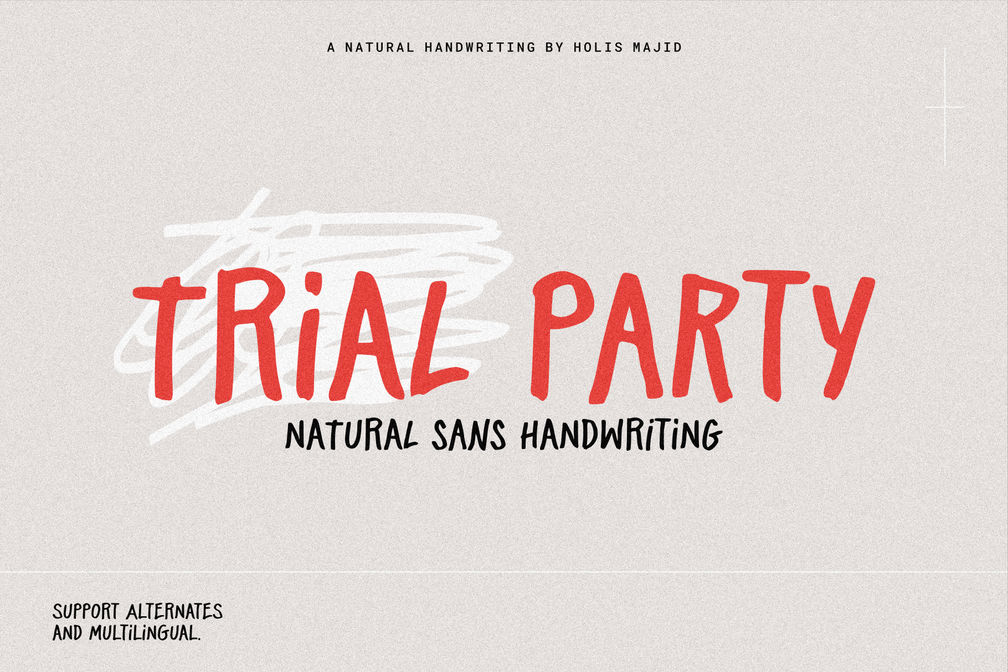
Trial Party Handwriting Font
Trial Party is a natural handwriting font for those of you who need realistic and natural-looking typing, suitable for quotes, branding, social media, advertisements, book titles, film posters, logos.
• Uppercase and Lowercase
• Alternates
• Numeral
• Punctuation
• Multilingual Support